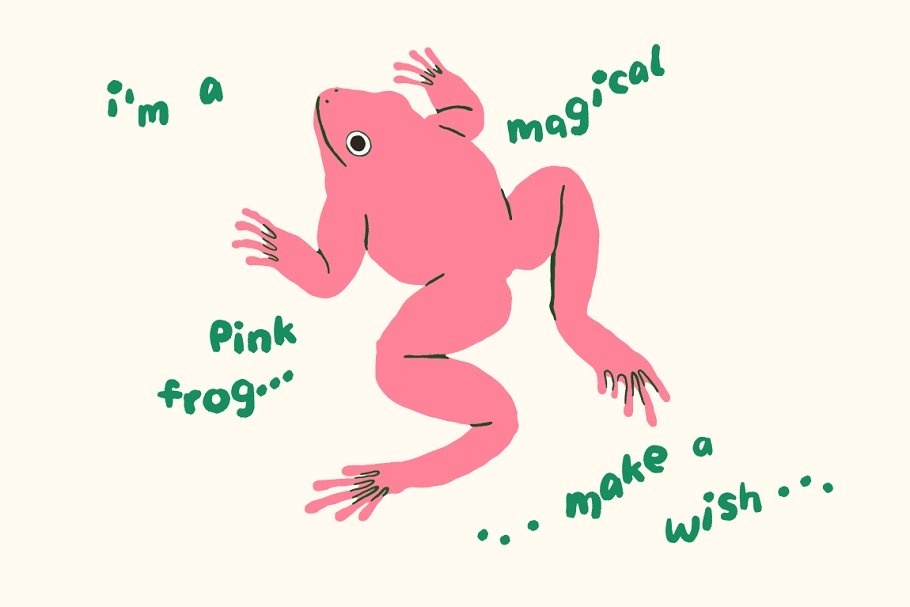
About the Wonderful! A Hand Made Painted Font
Ouu! look it’s Wonderful, a font that works great for display, quotes, notes, and adding a handmade personal touch! Each character includes 3 alternates and is painted with variations in cap height, ascender height, x-height, baseline, spacing, weight, and contour line quality to get that perfectly imperfect made by hand look, Enjoy!What’s in the font? Uppercase Letters A-Z! Lowercase Letters a-z! Numbers! Symbols! Punctuation! Multiple Alternate Characters! Ligatures! (see slides!)Files Included Hello-Wonderful-Solid